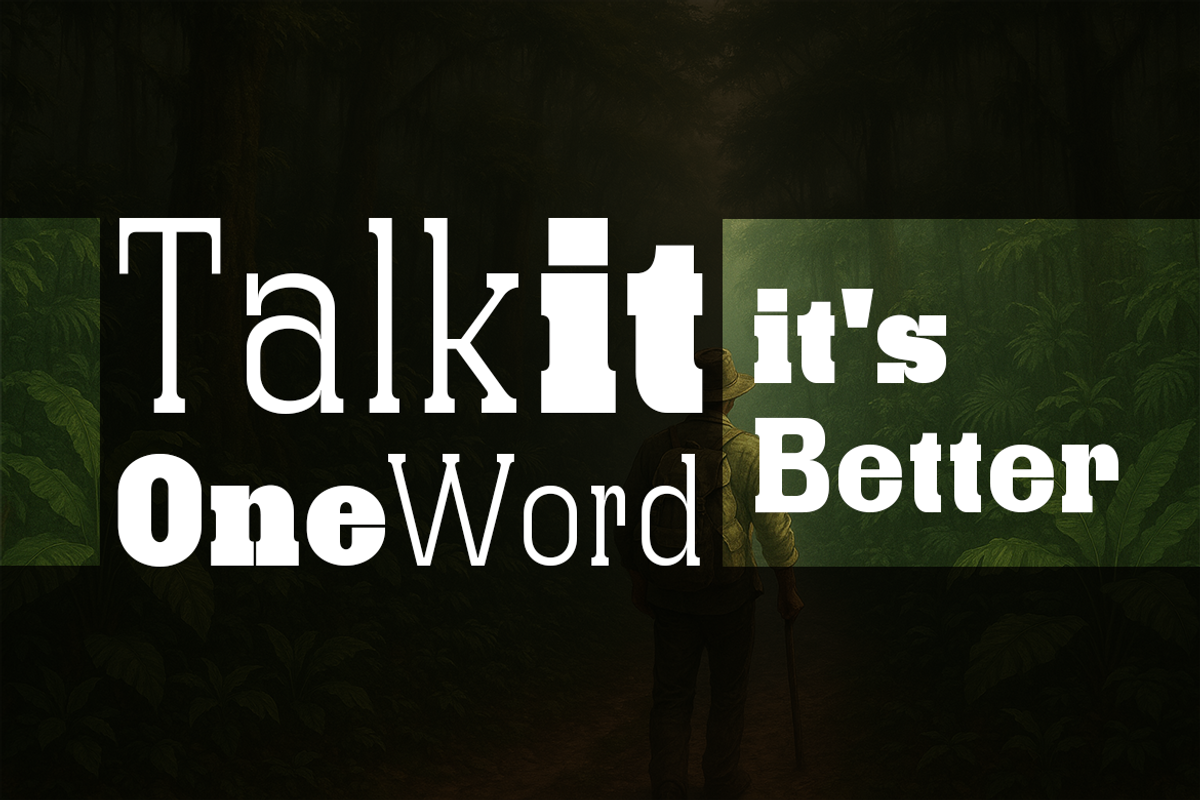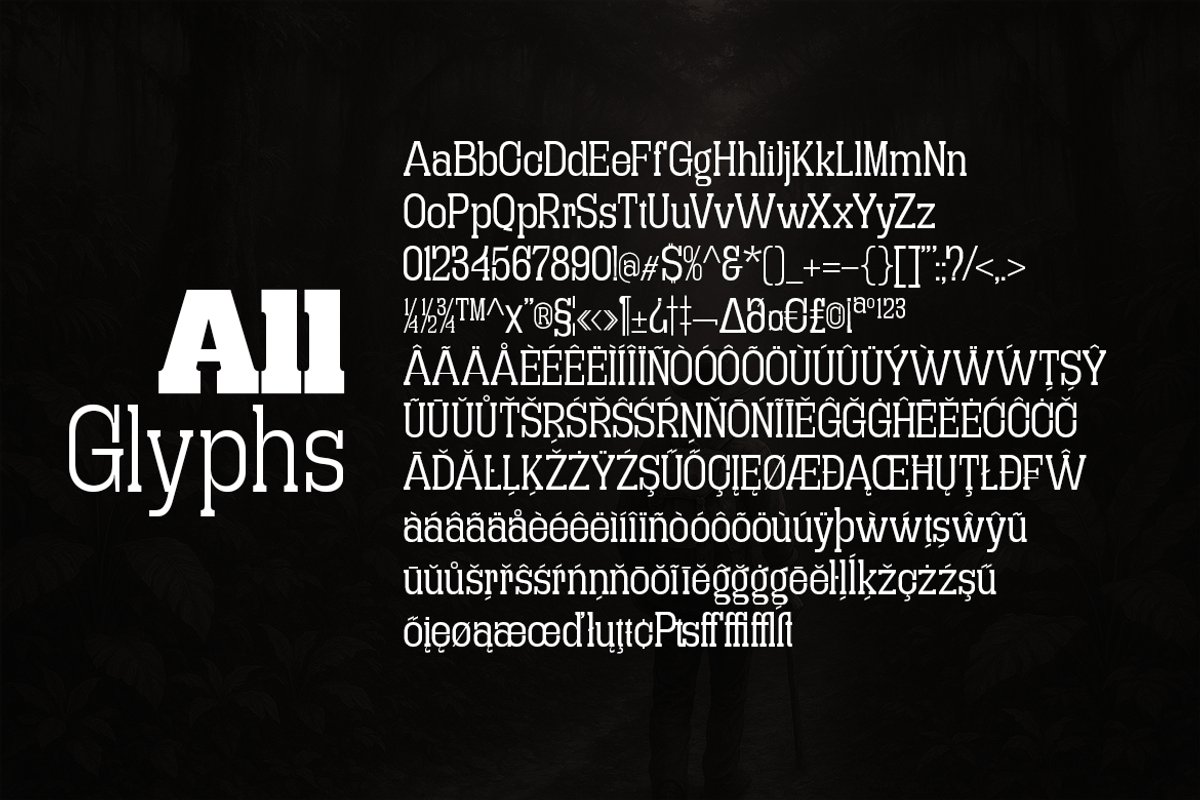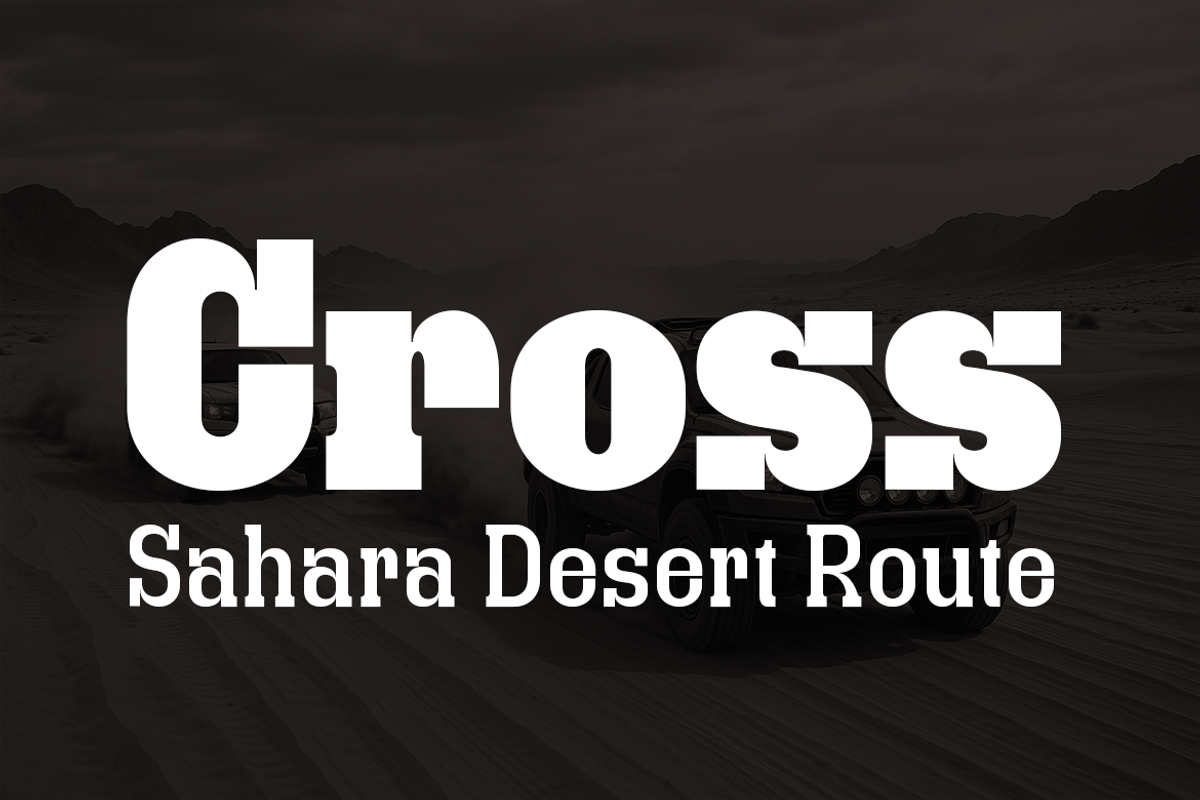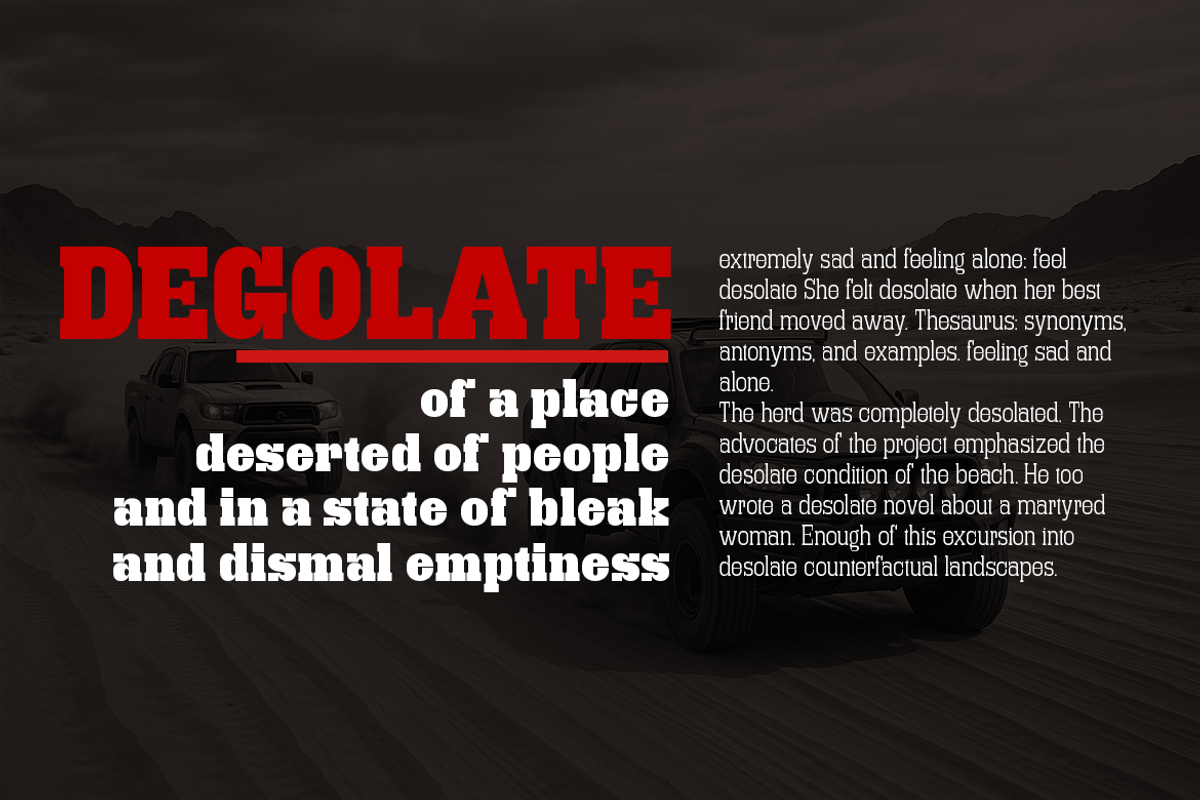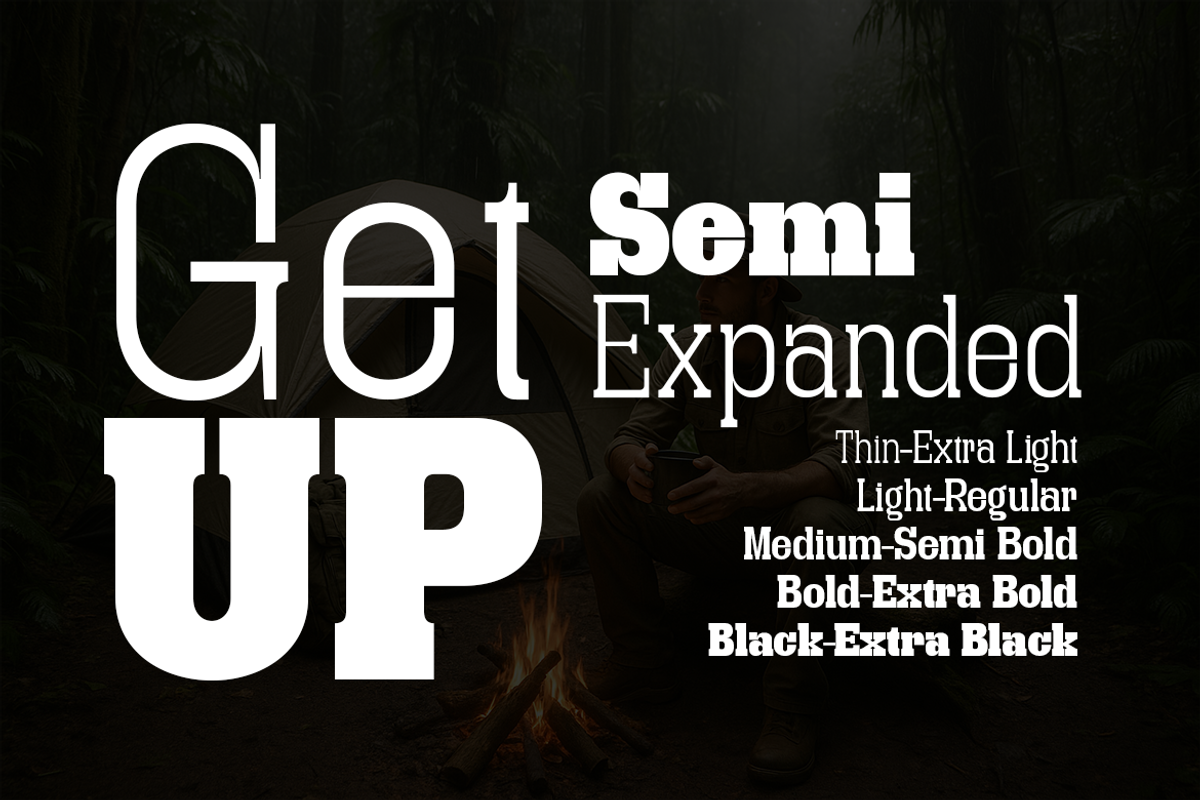
GetUp – Semi Expanded
GetUp – Semi Expanded (10 Weights: Thin–Extra Black)
Description: GetUp Semi Expanded opens up the structure with broader horizontal flow. Containing 10 expansive weights, this category enhances presence without overwhelming the layout. Ideal for sports branding, automotive graphics, expressive posters, and bold web hero titles. The expanded construction gives each weight—from Thin to Extra Black—room to breathe, providing a strong, confident, and versatile typographic voice.